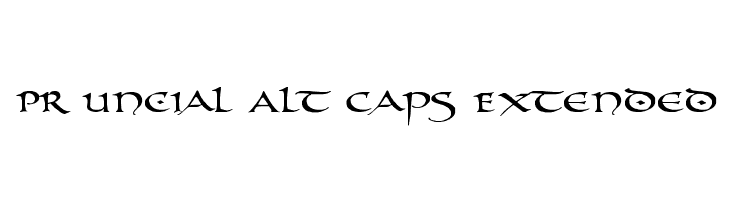
( Fonts by Peter Rempel - www.prfonts.com )
A medieval-inspired font with sharp, angular lines and decorative serifs.
( Fonts by Peter Rempel - www.prfonts.com )
A decorative, medieval-style font with ornate and historical elements.